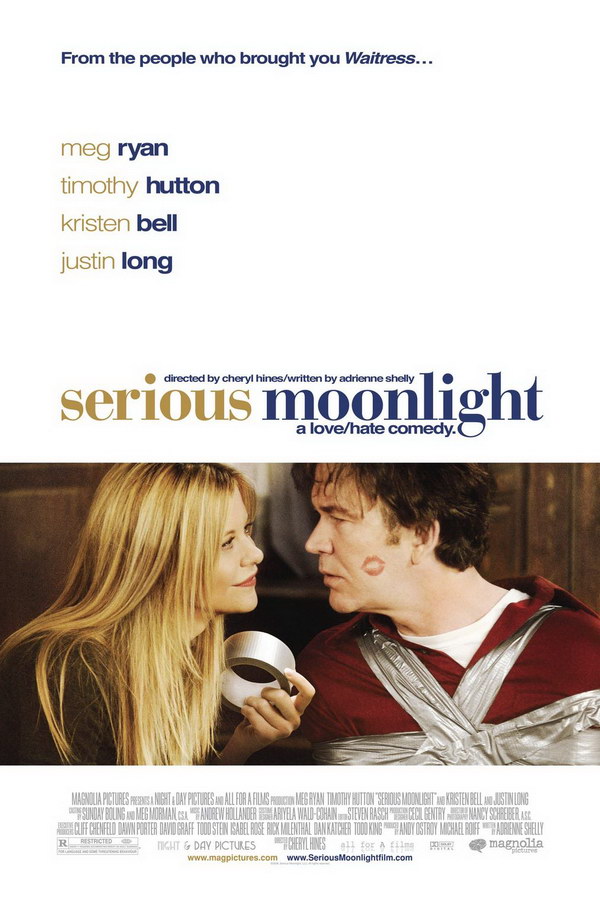
Serious Moonlight Font
ComedySerious Moonlight is a 2009 dark comedy directed by Cheryl Hines. The movie follows a high-powered lawyer, played by Meg Ryan, who holds her husband (played by Timothy Hutton) hostage in their home after discovering he's leaving her for another woman.
The movie title font on the poster resembles Bauer Bodoni Bold, a typeface revival of Giambattista Bodoni's 1798 design that emphasizes strong contrast between hairline and main stroke. More details about the font can be found here.